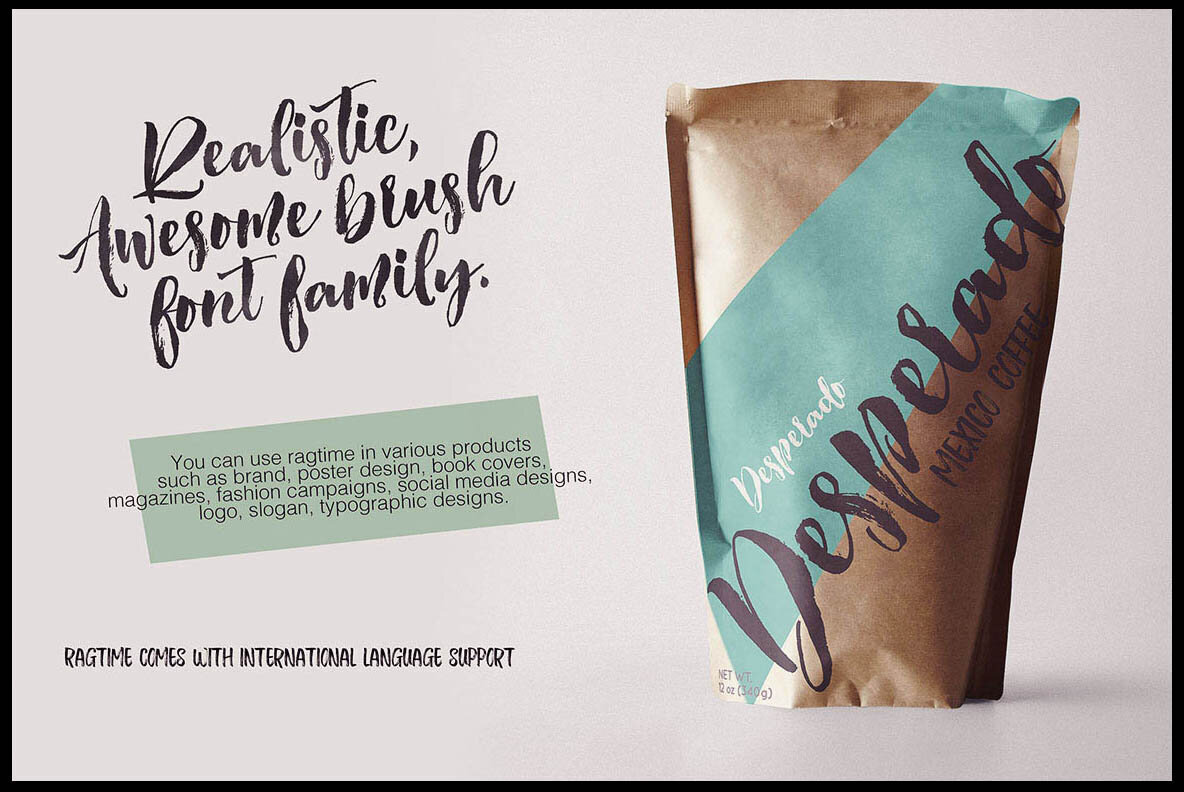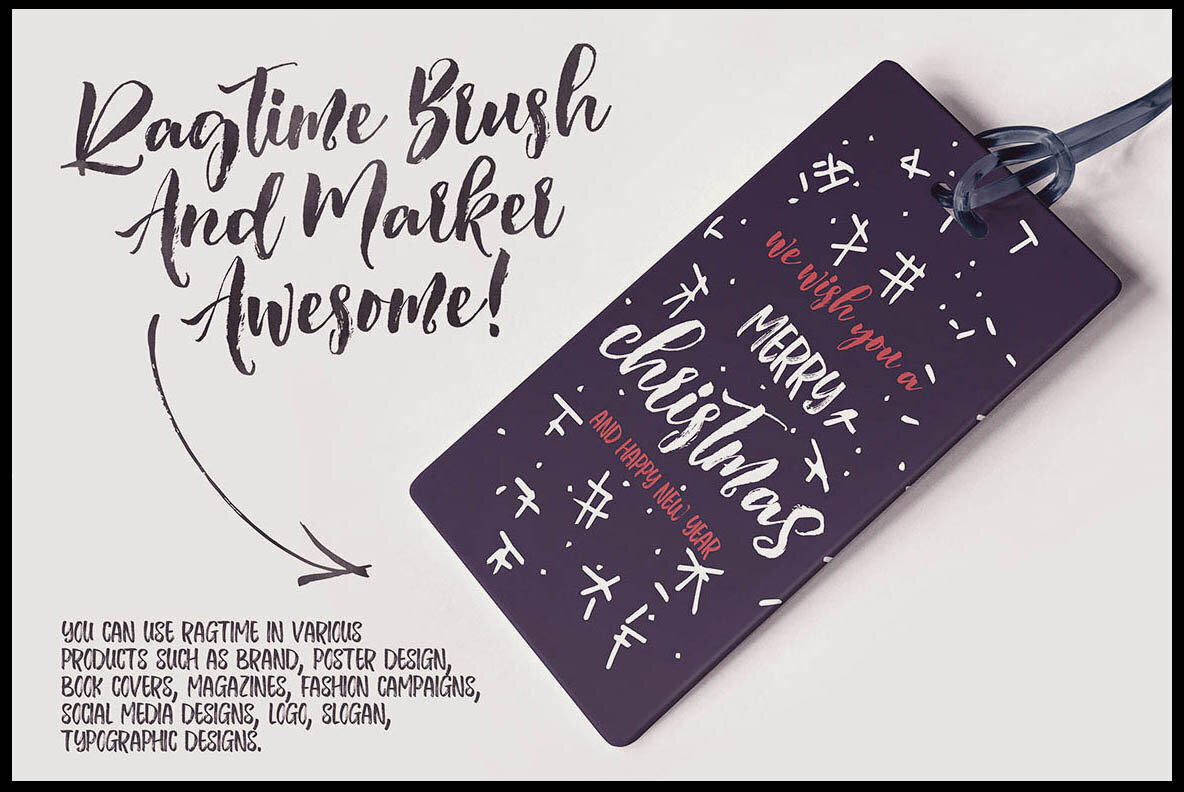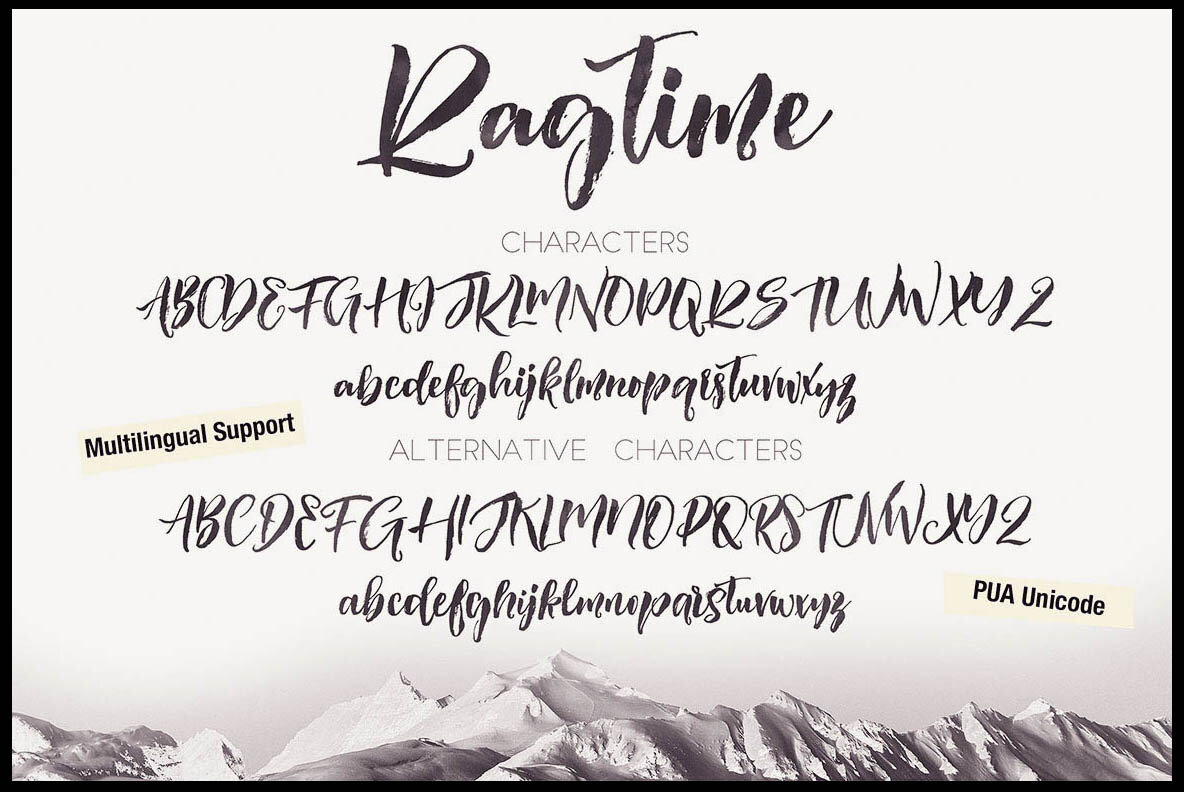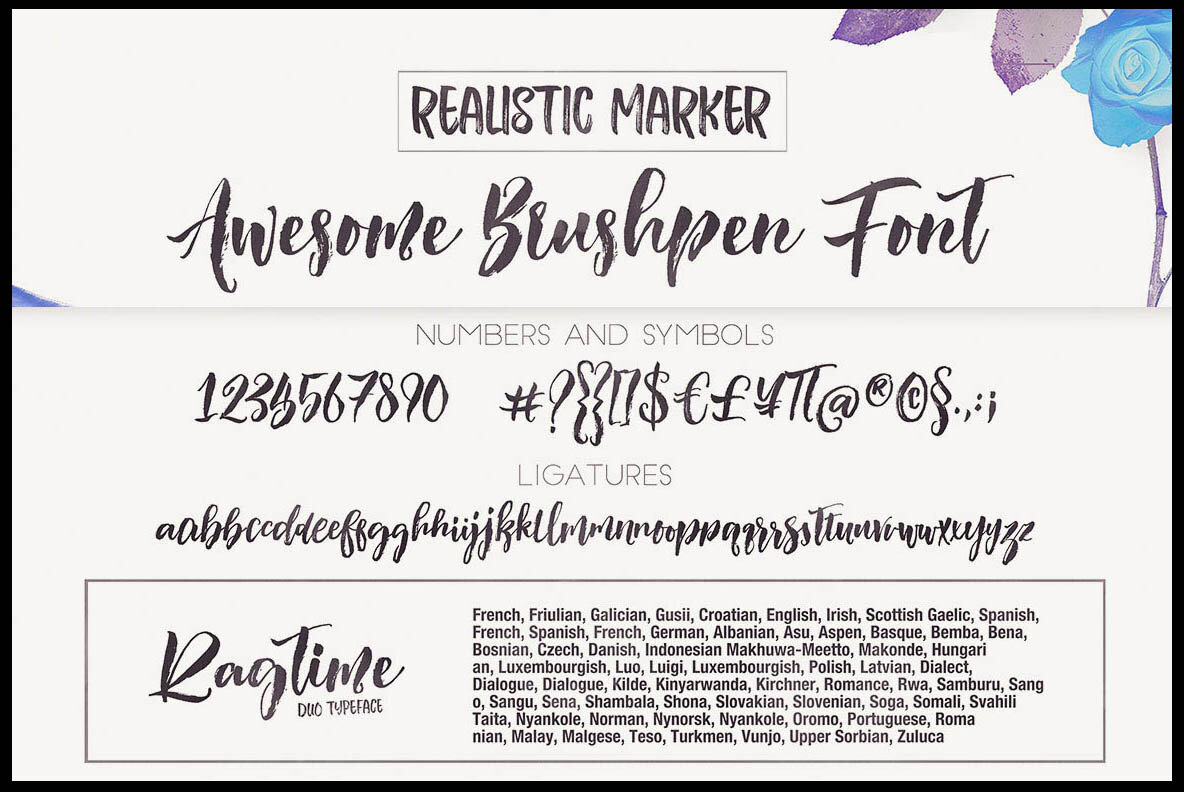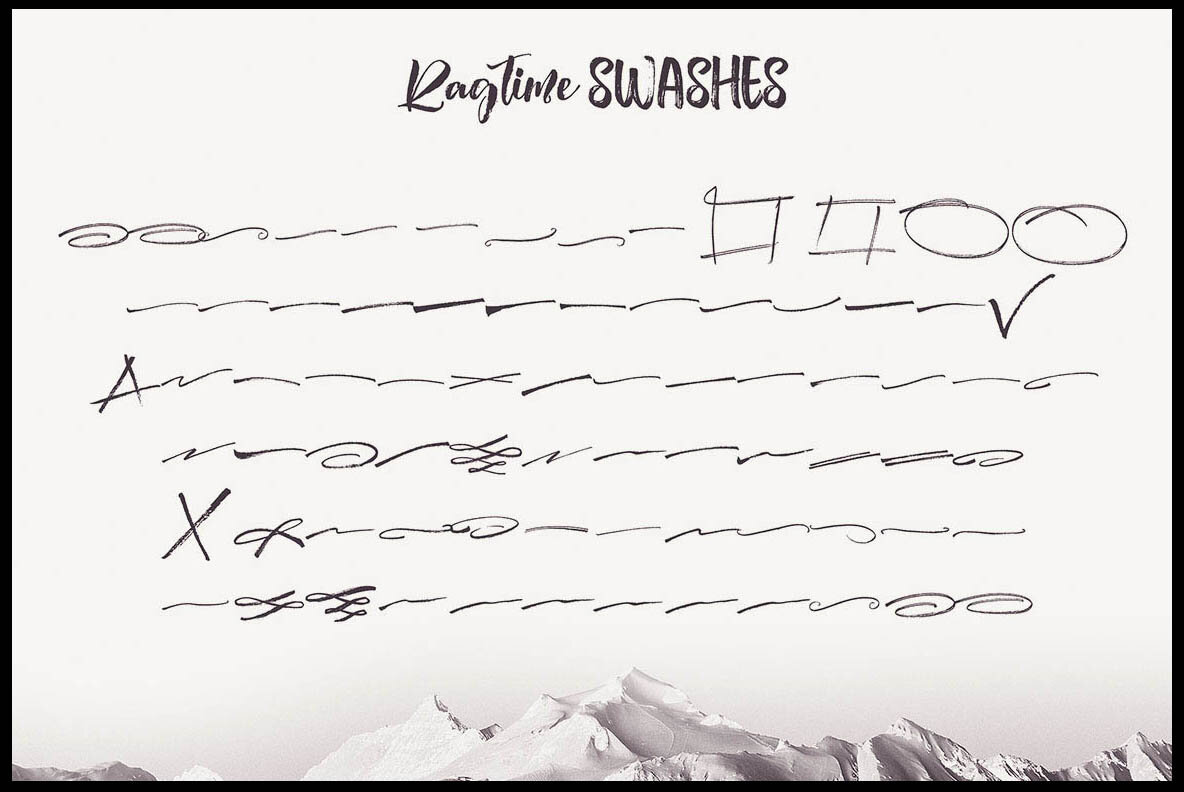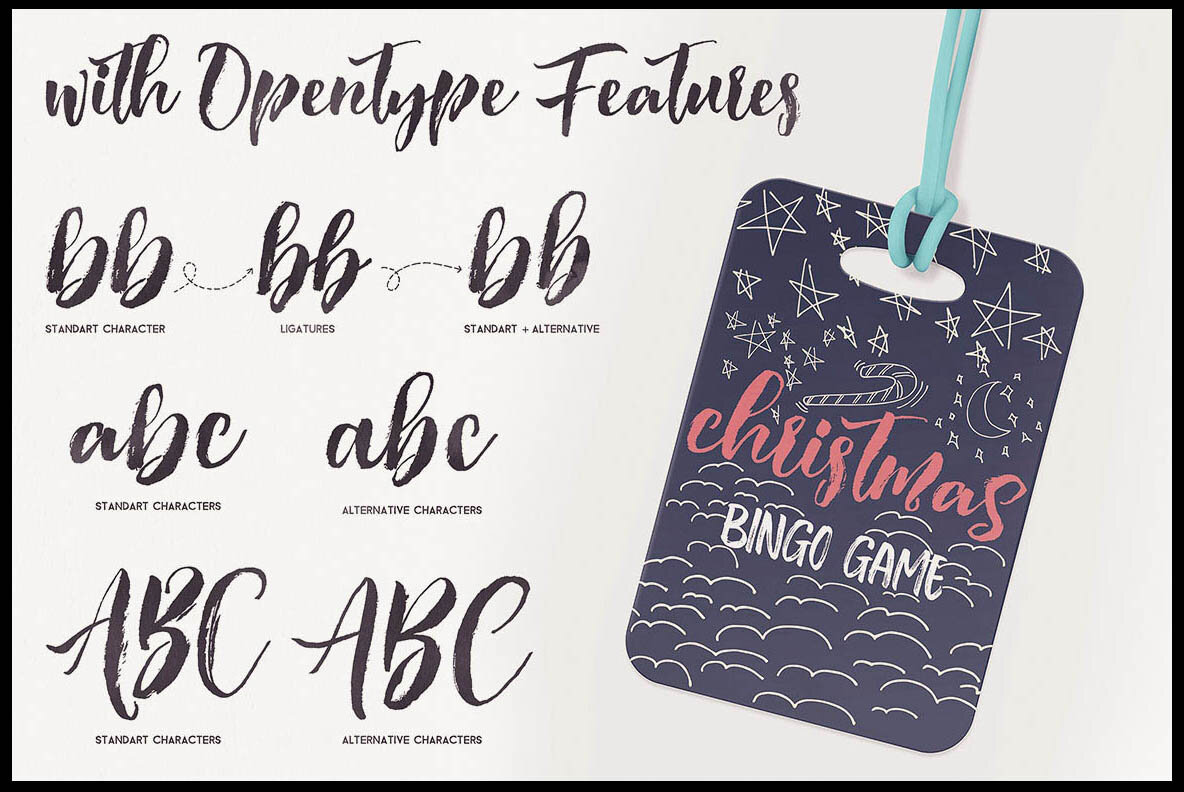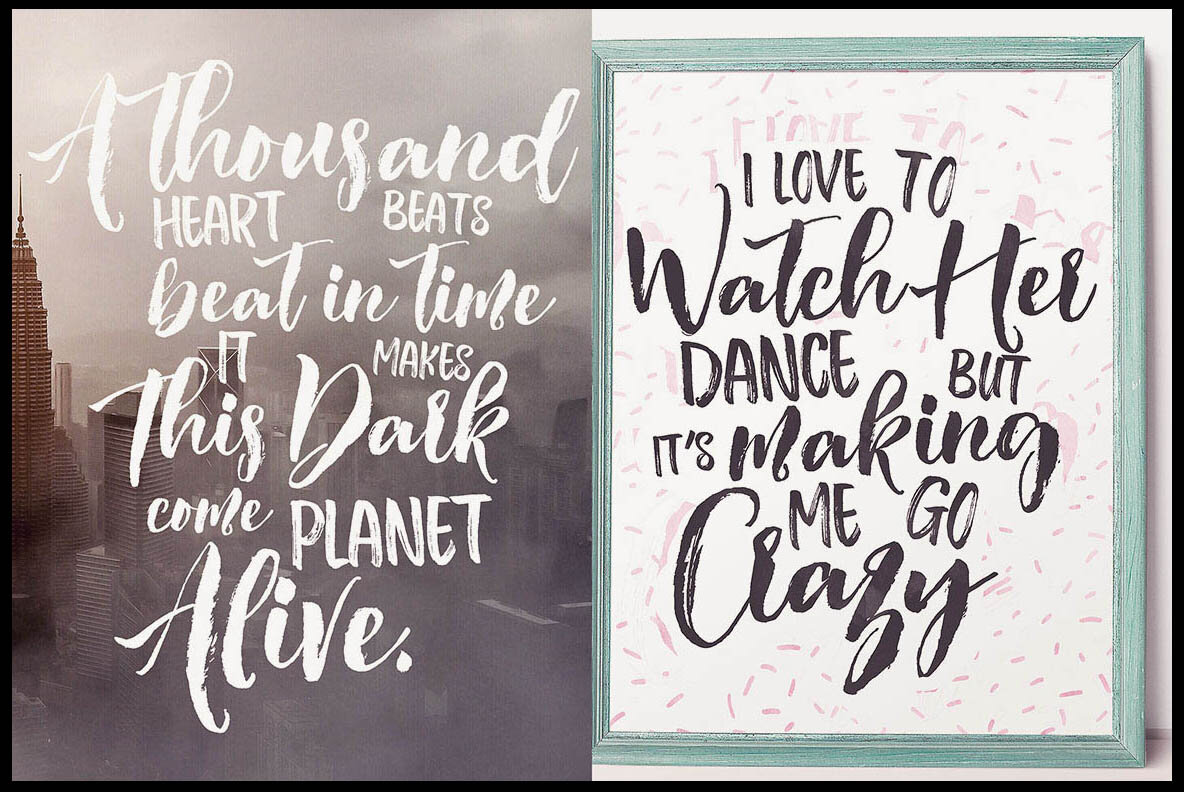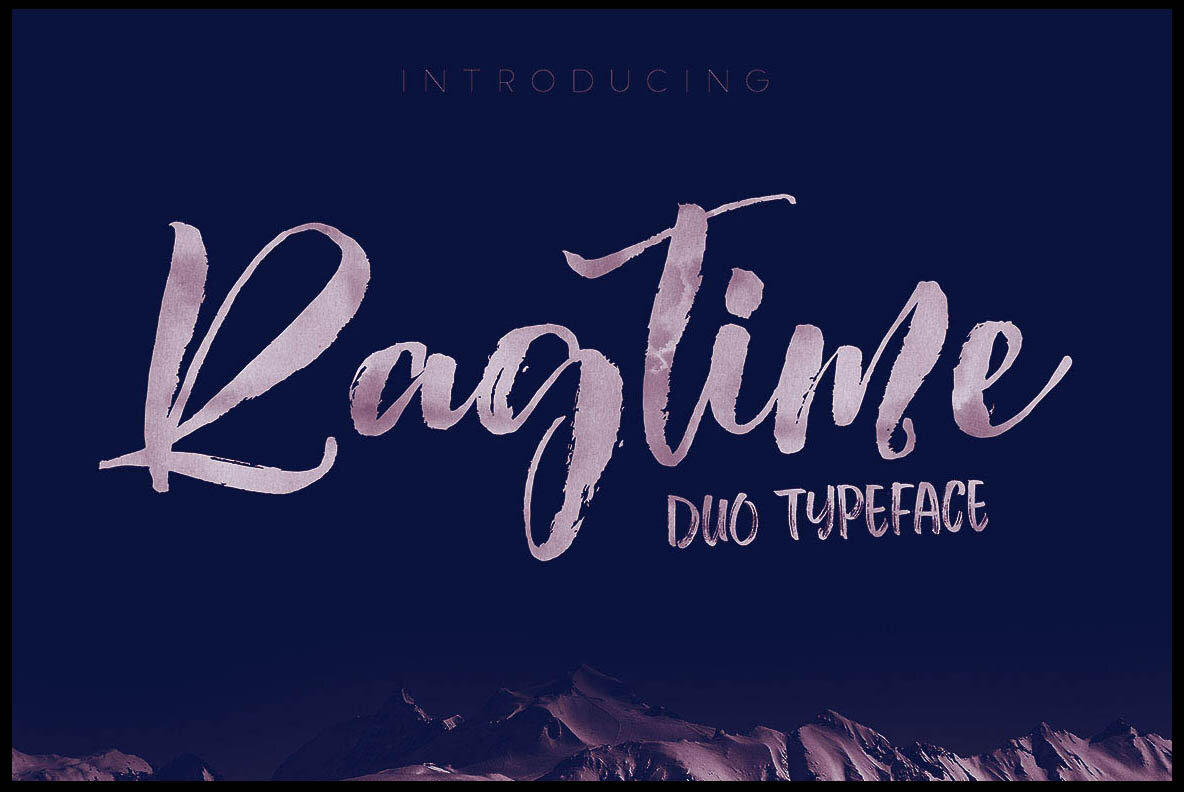
Ragtime Brush Font Duo
Ragtime Brush Font Duo offers a distinctive handwritten brush style ideal for creative projects. This font duo includes versatile multilingual options, making it perfect for grunge or artistic designs.Ragtime Brush Font Duo: Artistic Handwritten Style